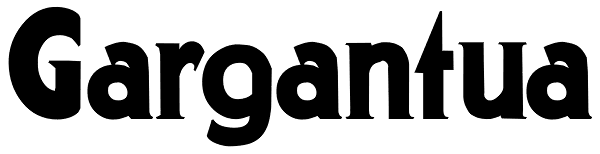
Gargantua
Gargantua is a stylized, bold display font with a strong, unique and somewhat futuristic look. It's excellent for poster headers and logo designs.
Gargantua Font